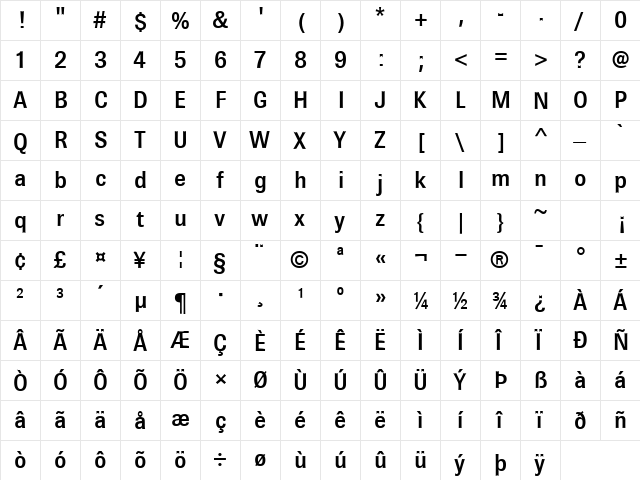
BrownMedium Regular
Design Context for BrownMedium Typeface
BrownMedium takes a measured approach to typography — its balanced proportions and neutral character make it a reliable workhorse for both digital and print work.
Pro Tip: Use BrownMedium in both headline and body roles to test its range before committing to a single application.